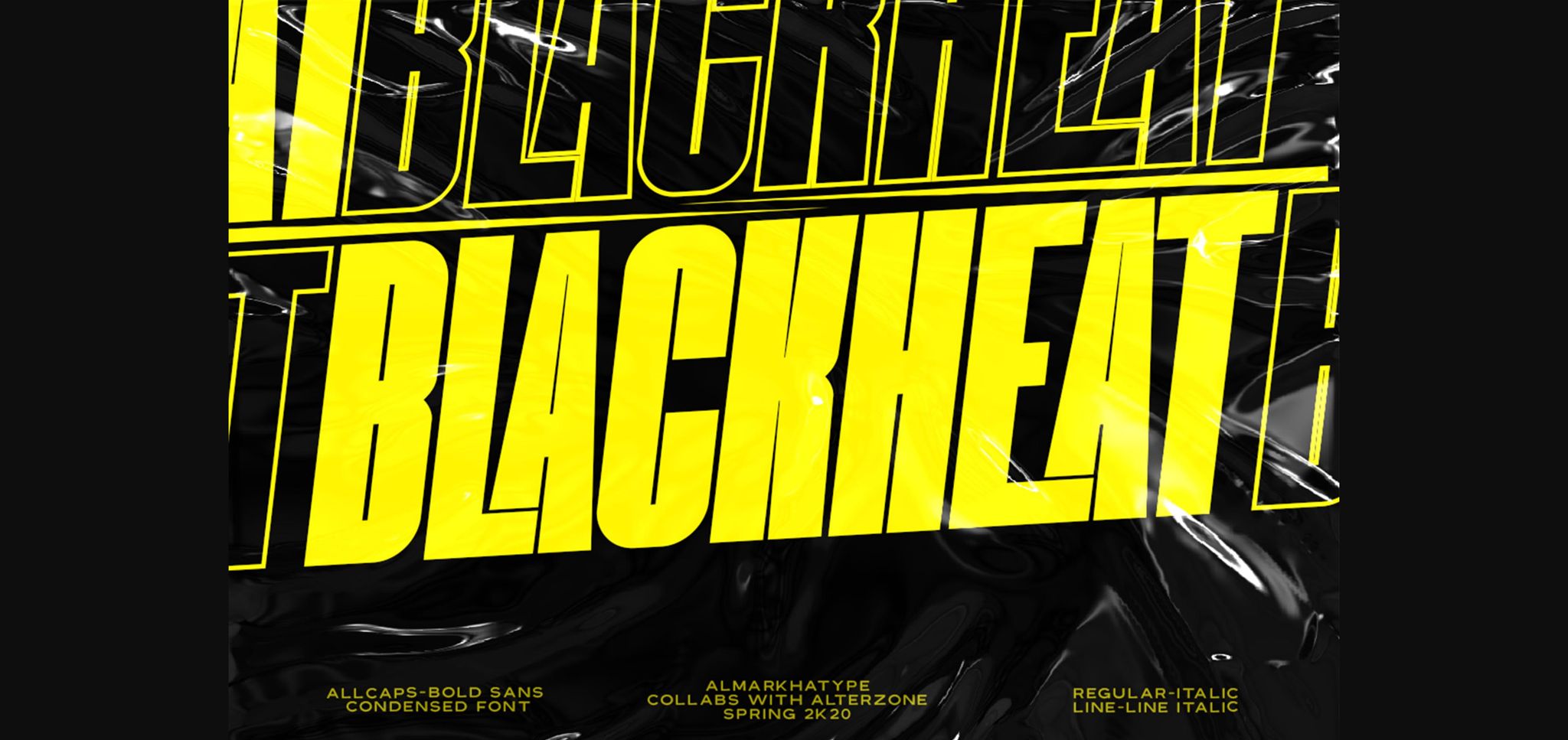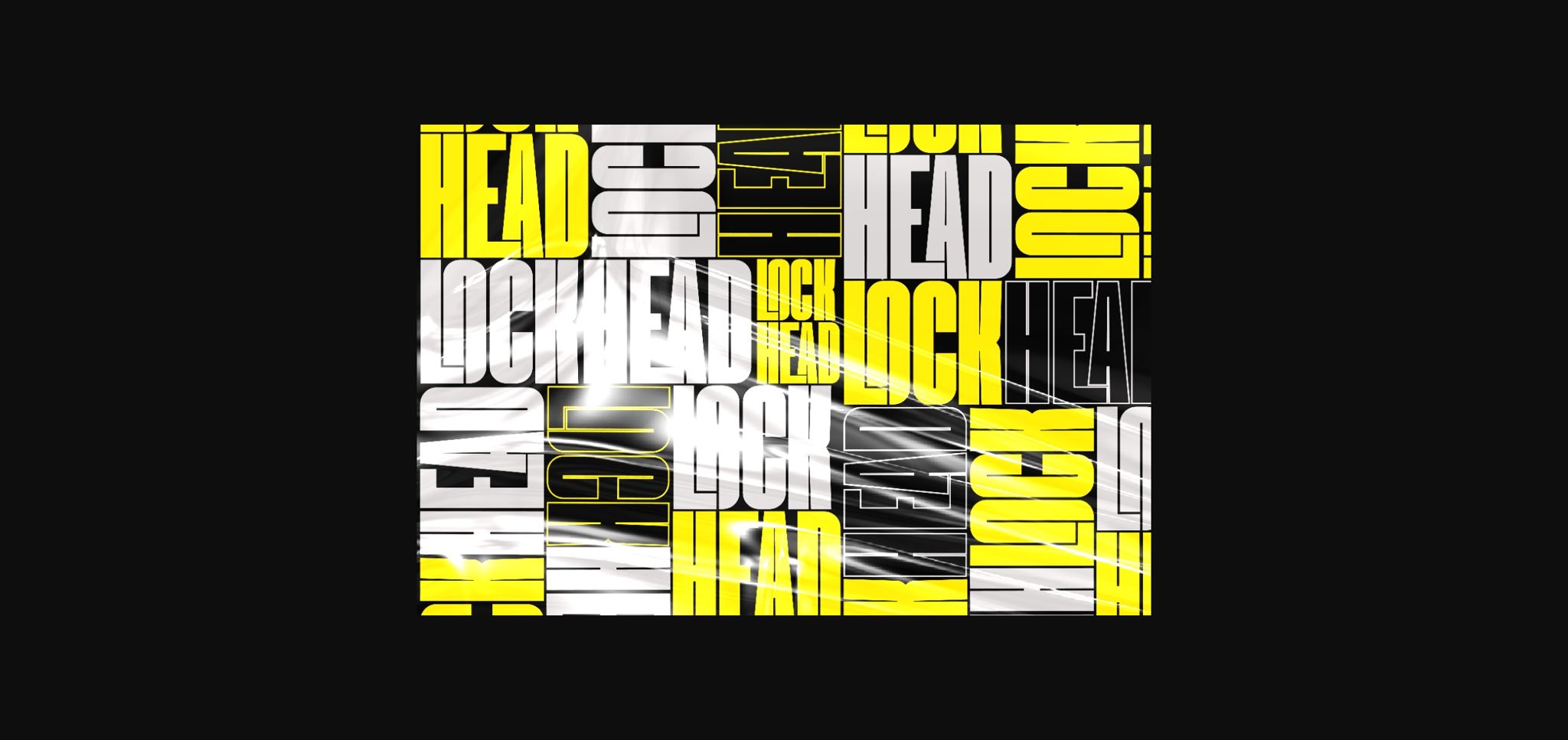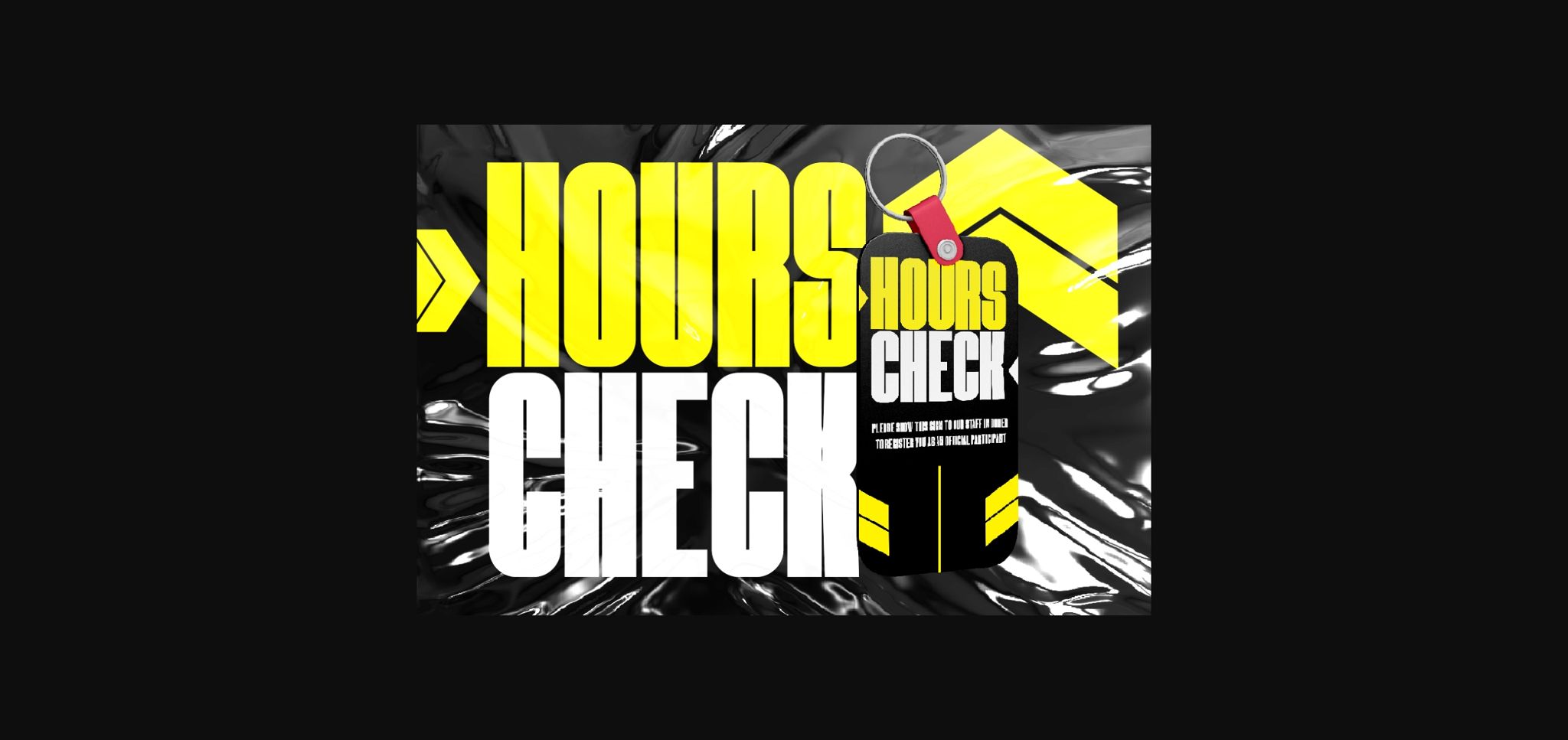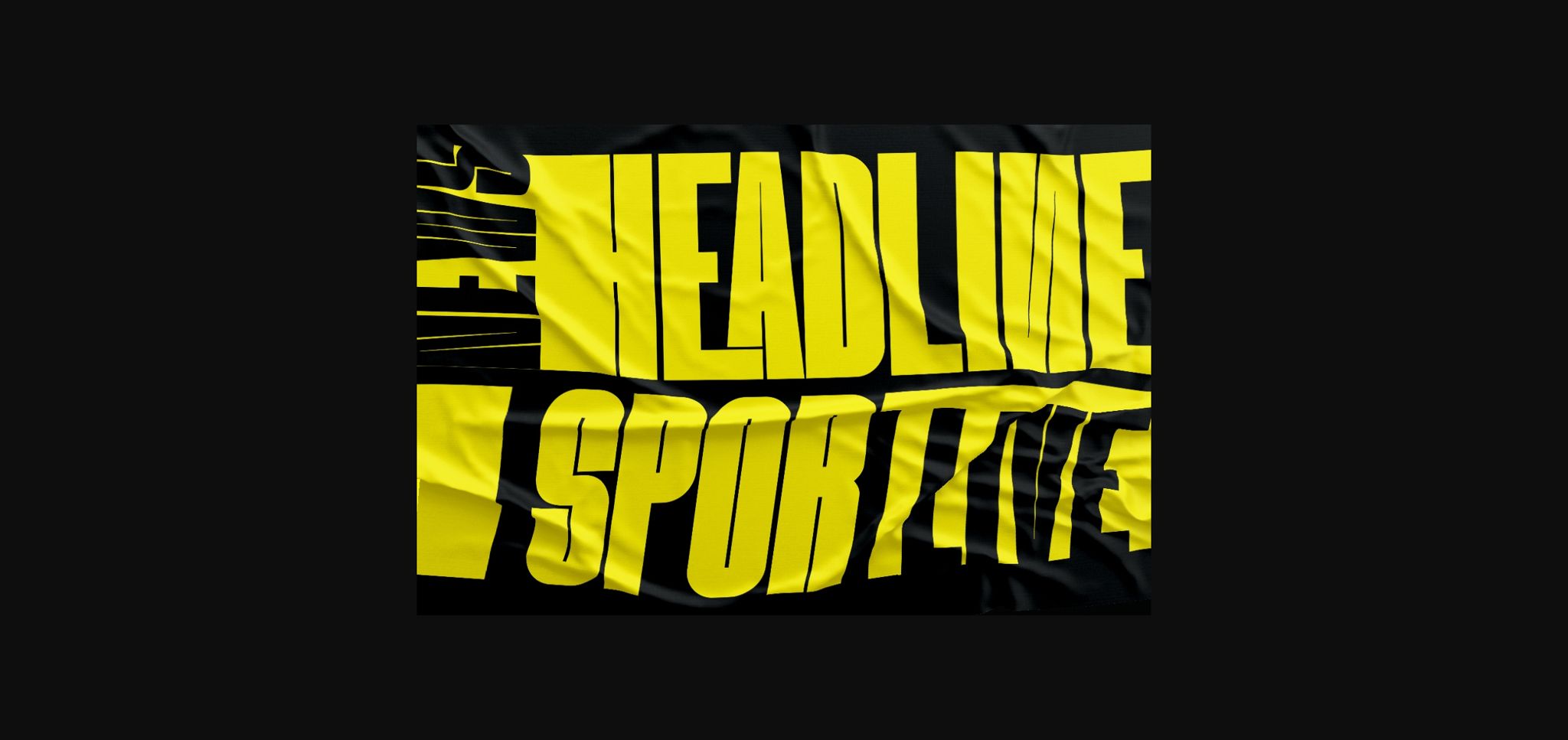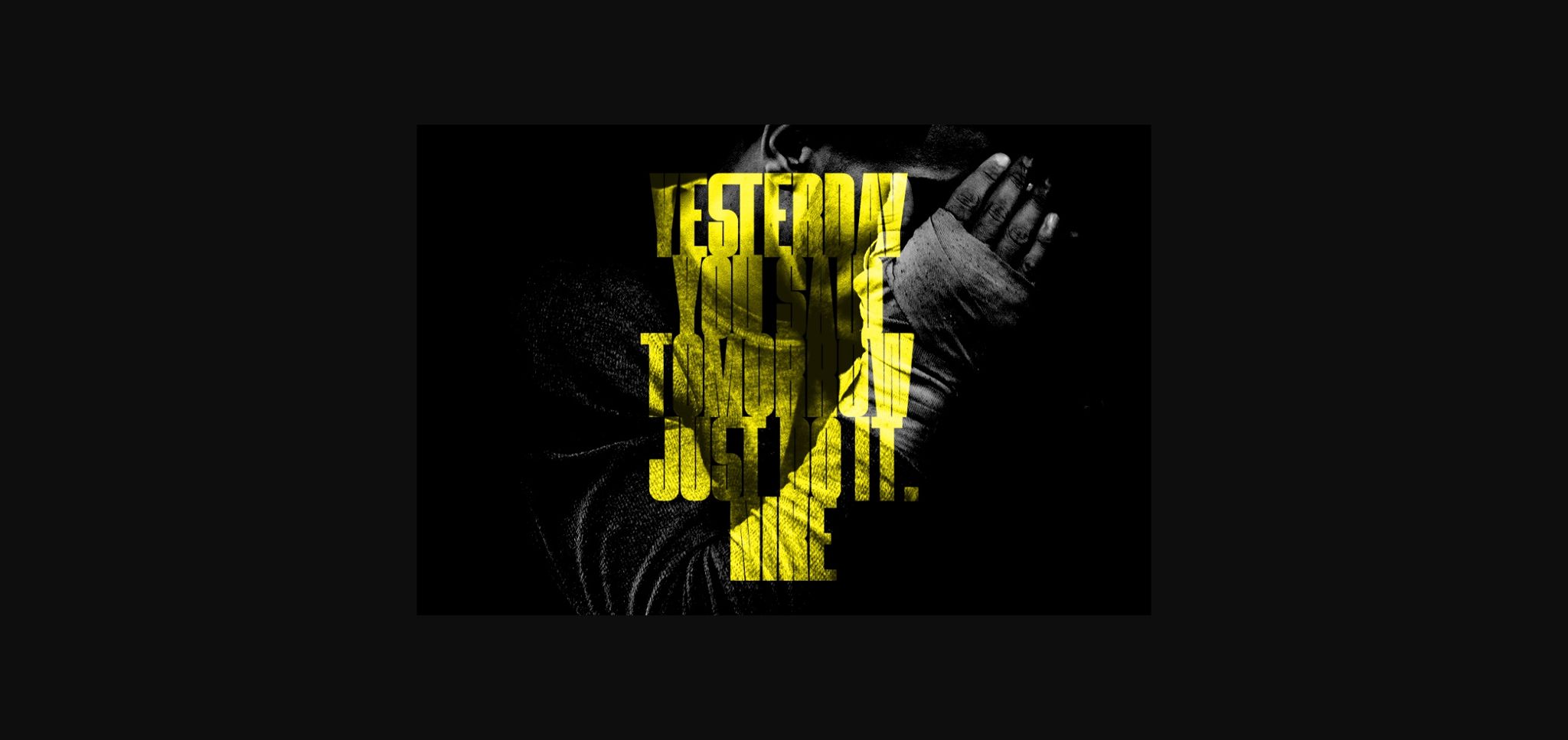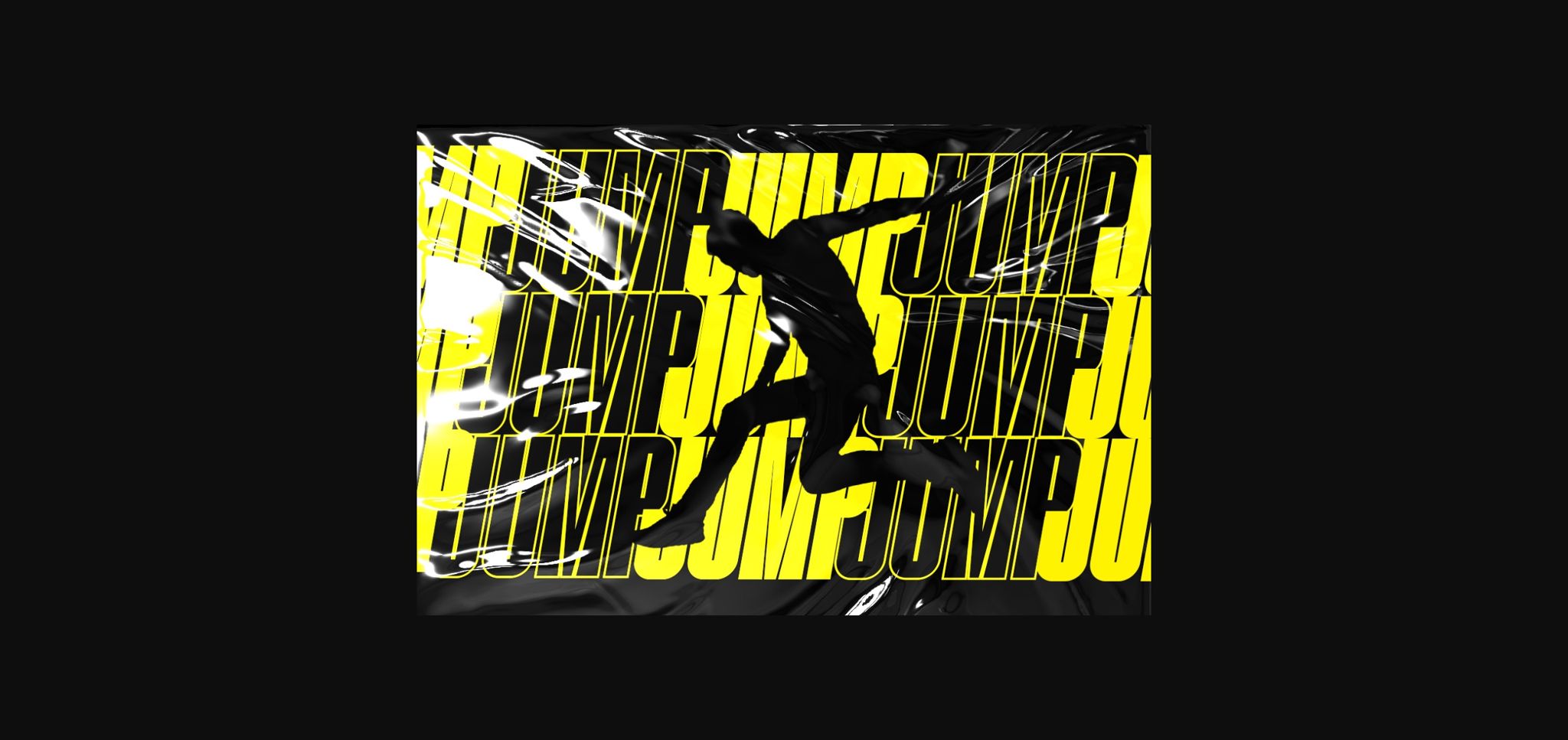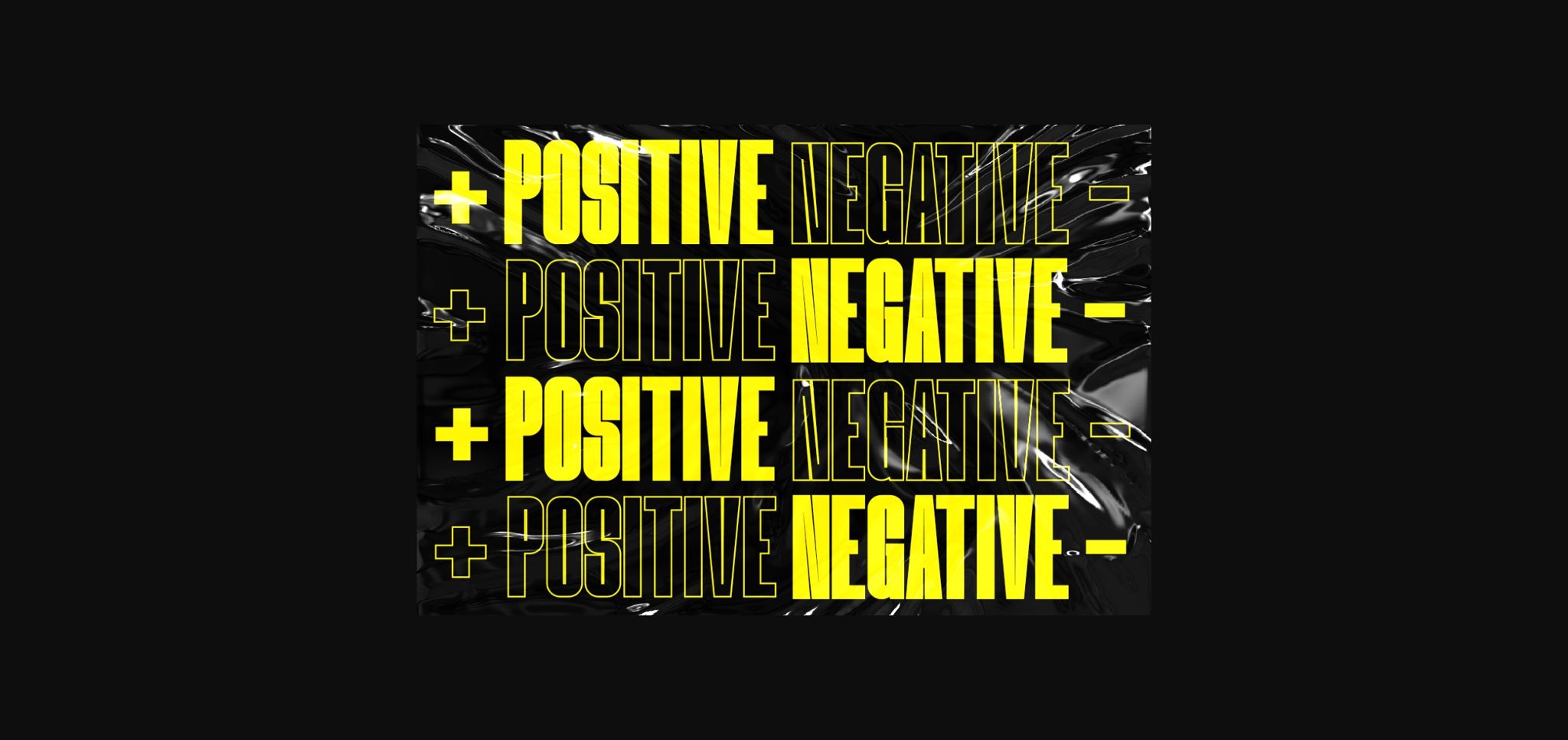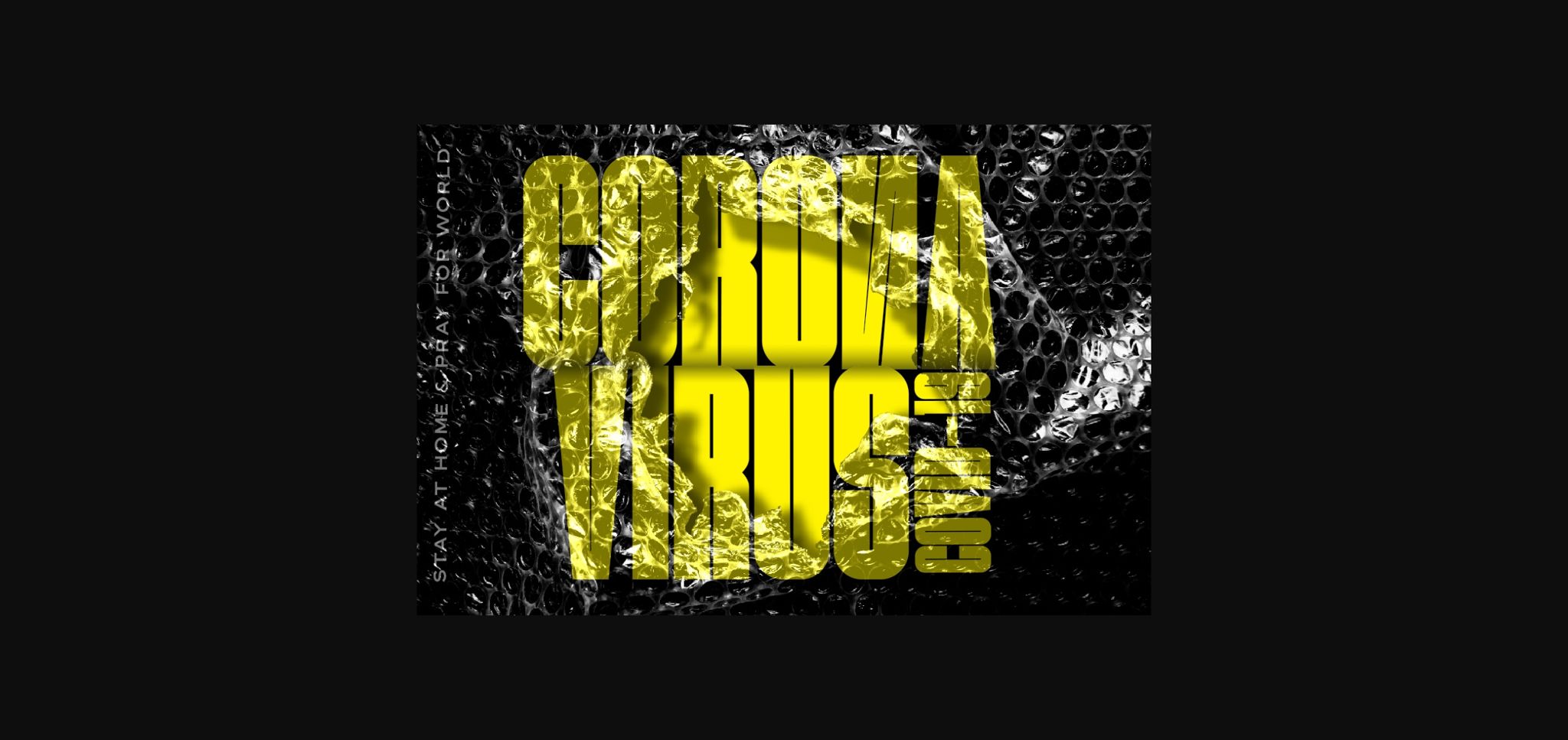
Blackheat is a bold sans serif font, carefully handcrafted to become a true favorite. With its neat and beautiful arrangement of letters, this typeface will look outstanding in both formal and non-formal designs.